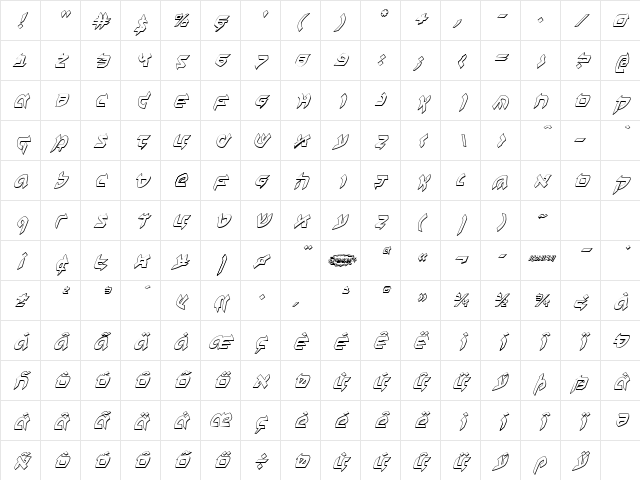
Ben-Zion 3D Italic is a composed and adaptable typeface that performs quietly and consistently across a wide range of design contexts. The slanted form adds forward momentum and visual energy.